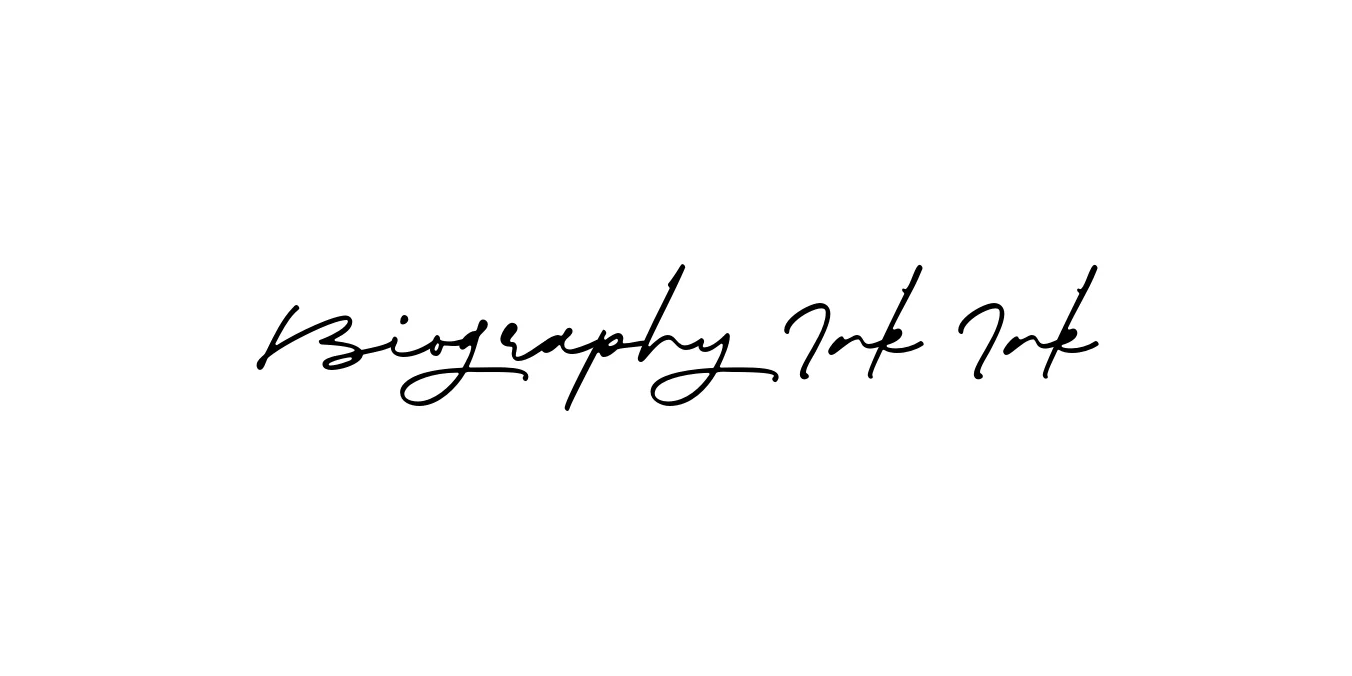
Biography Ink Ink
| Font Name | Biography Ink |
| Style | Ink |
Biography Ink Ink is a sophisticated script typeface designed by Letterena Studios. It features elegant, flowing strokes that mimic natural handwriting with a distinct ink-pen aesthetic. The font provides a high level of legibility while maintaining a personalized, artisanal feel, making it perfect for creative projects that require a delicate human touch and professional finish.
This typeface includes a variety of OpenType features, such as stylistic alternates and ligatures, which allow for a more organic and fluid text layout. Whether used for luxury branding or personal stationery, Biography Ink Ink provides a timeless charm that bridges the gap between traditional calligraphy and modern digital design requirements.
Biography Ink Ink Best Uses
Perfect for creating elegant and personal event invites.
Ideal for signature-style brand identities and professional logos.
Great for aesthetic quotes and stylish Instagram graphics.
Adds a bespoke feel to letterheads, business cards, and greeting cards.